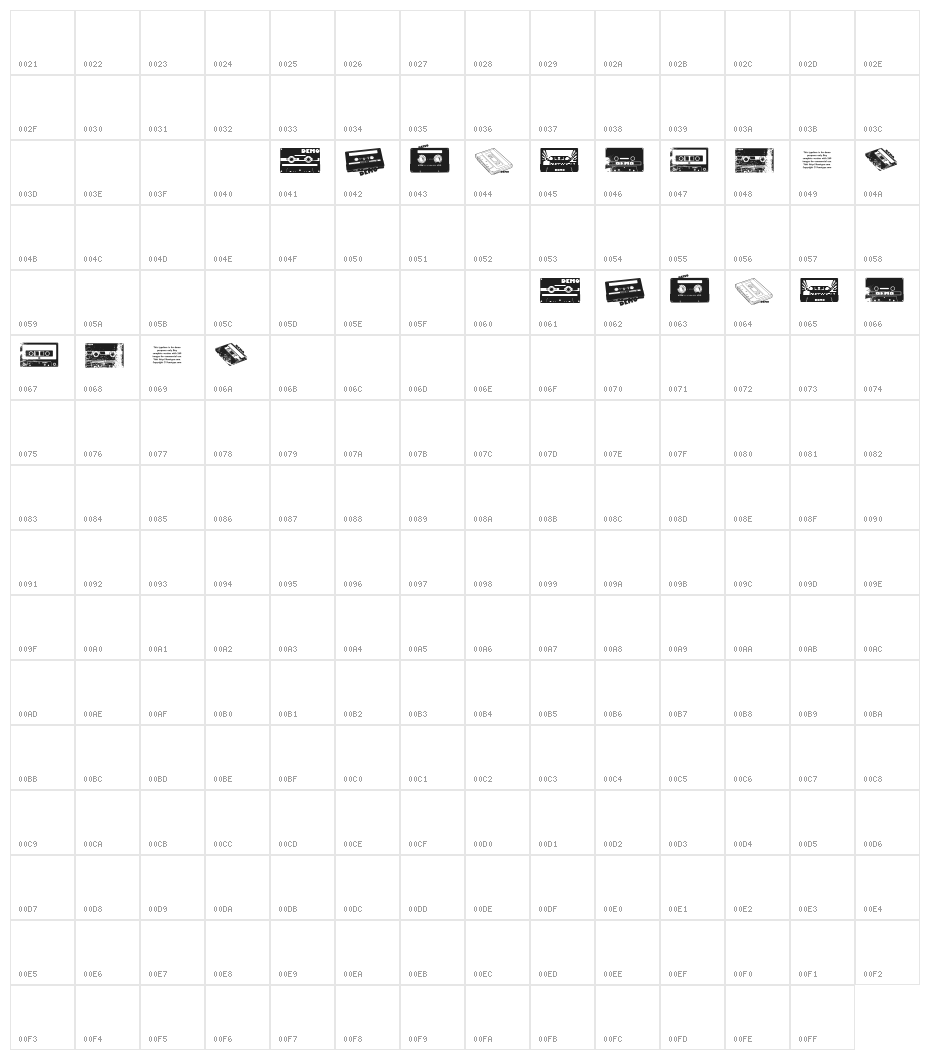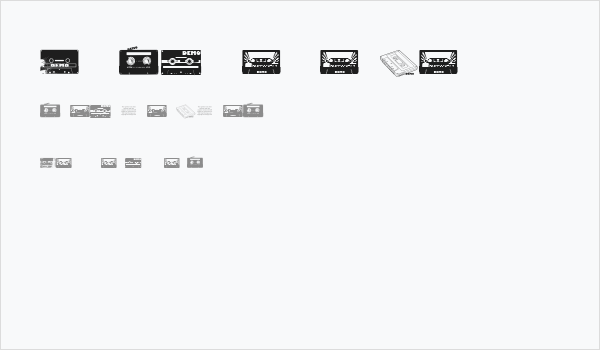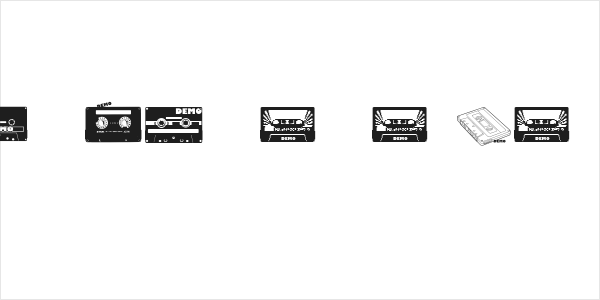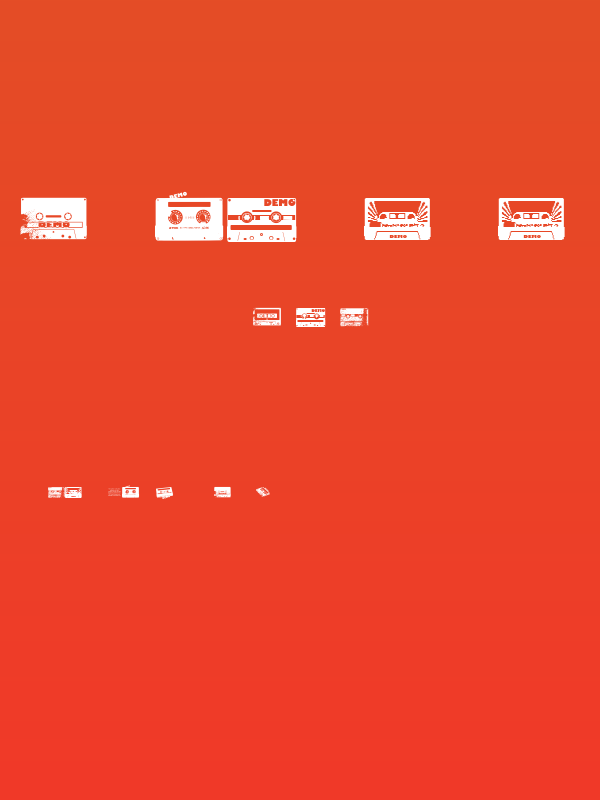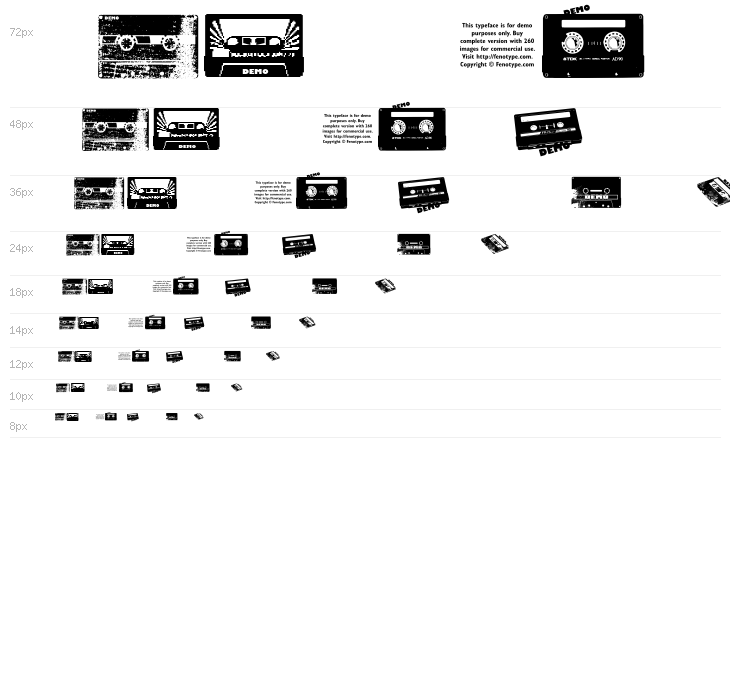
FT Cassette Demo Font
FT Cassette Demo Description
A decorative font composed entirely of stylized cassette tape illustrations, each representing a different letter, number, or symbol, with varying levels of detail and orientation, evoking a retro, analog aesthetic.
| Overall Style | Retro, Decorative |
| Proposed Projects | Music event posters, retro-themed branding, album covers, party invitations, youth culture designs. |